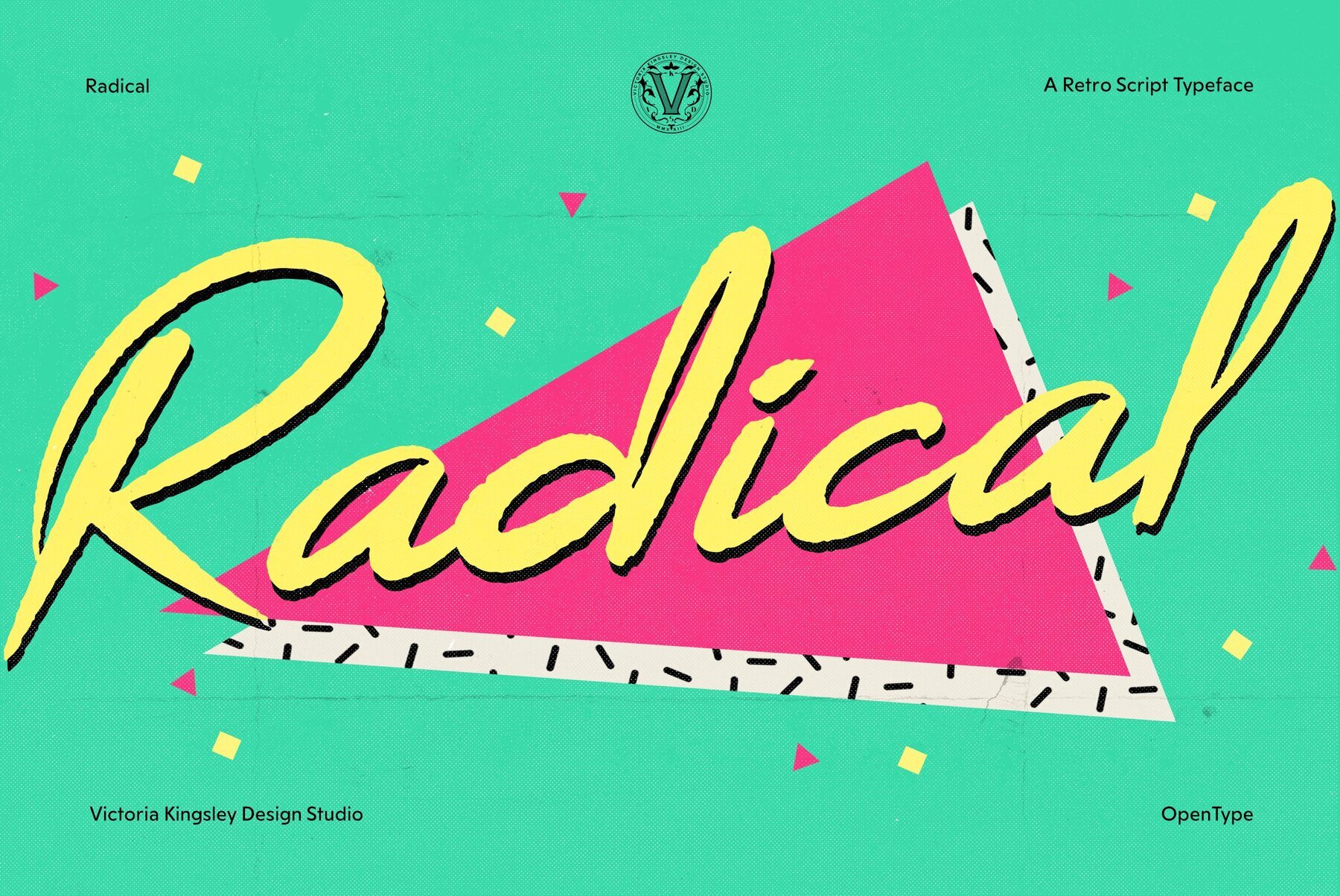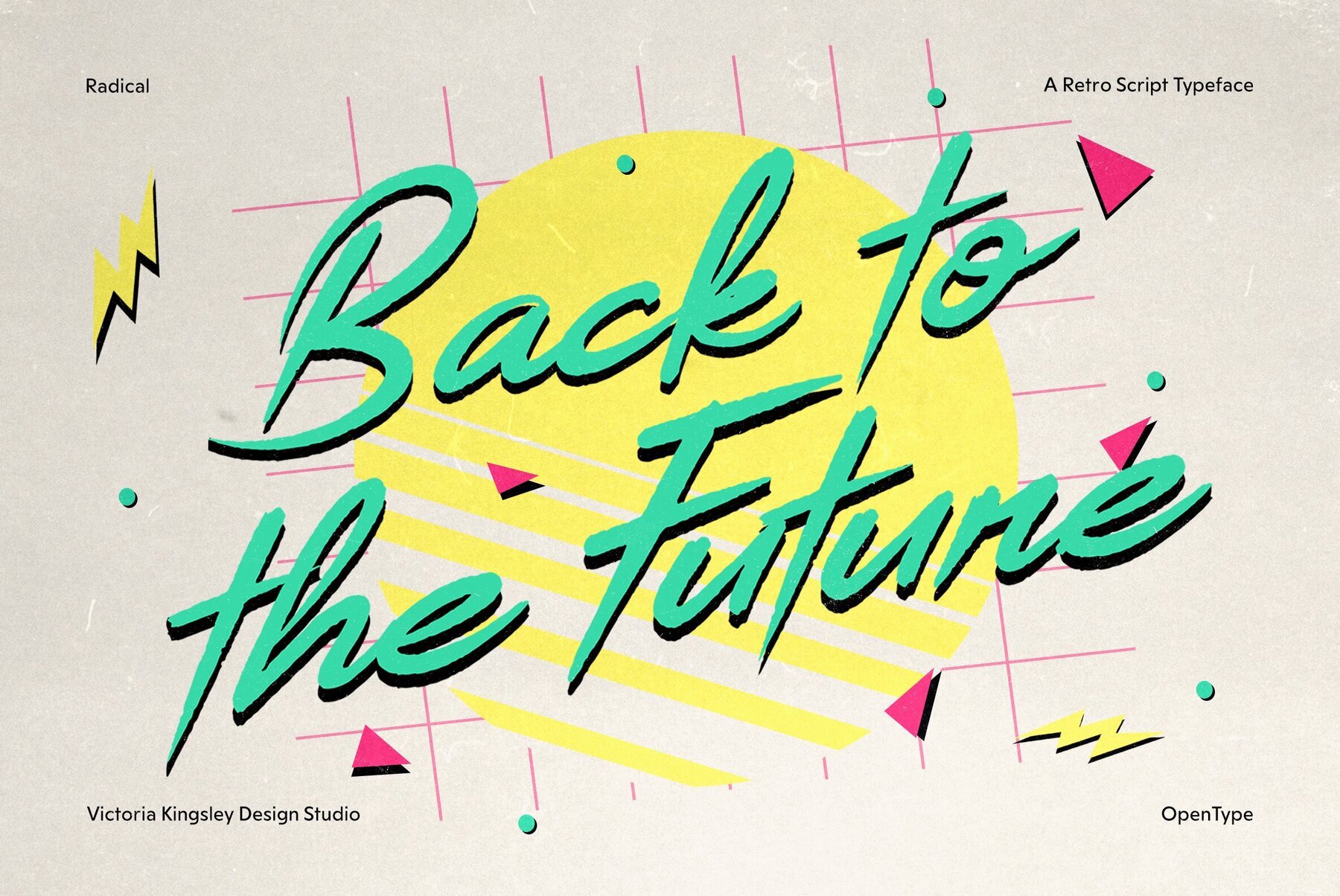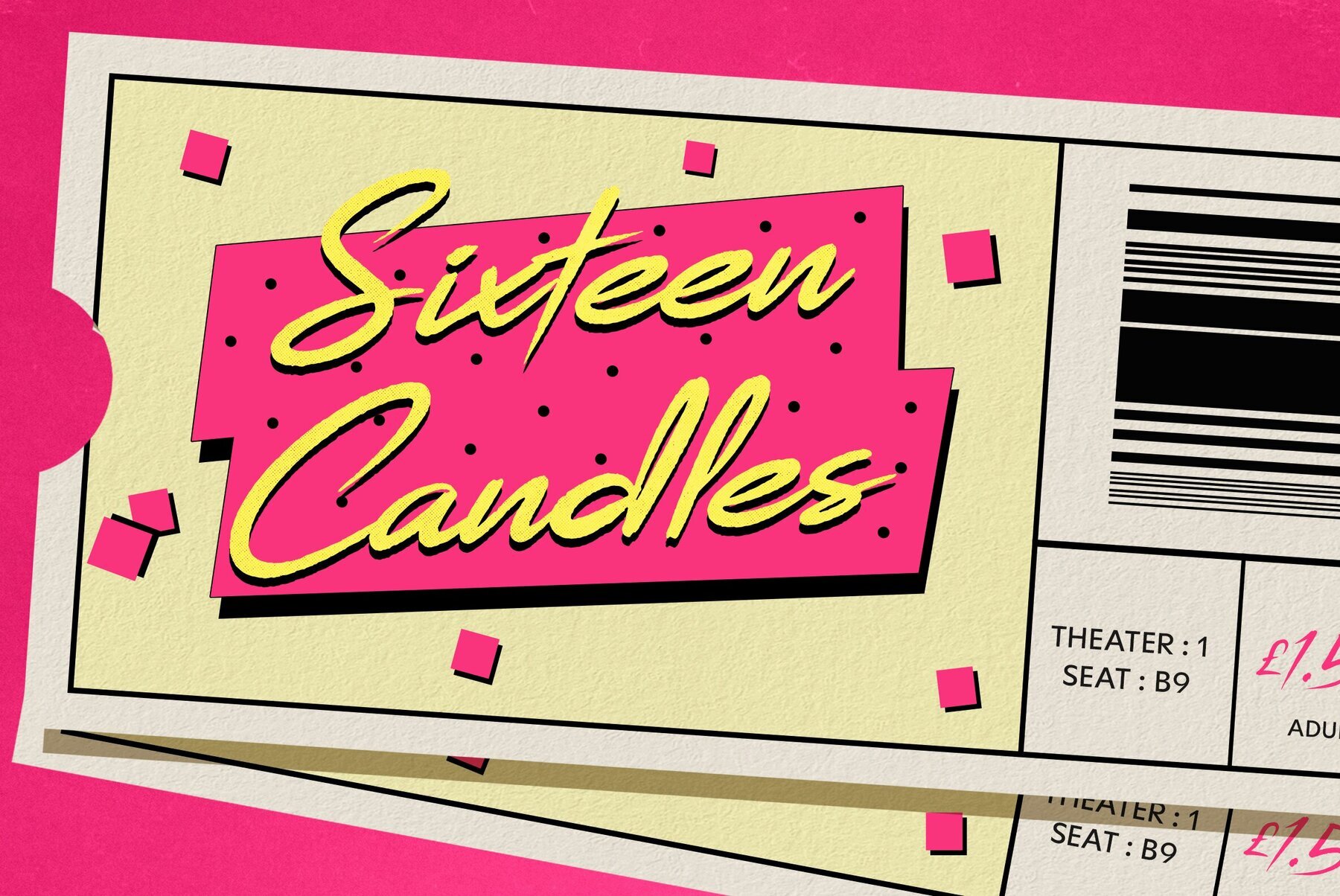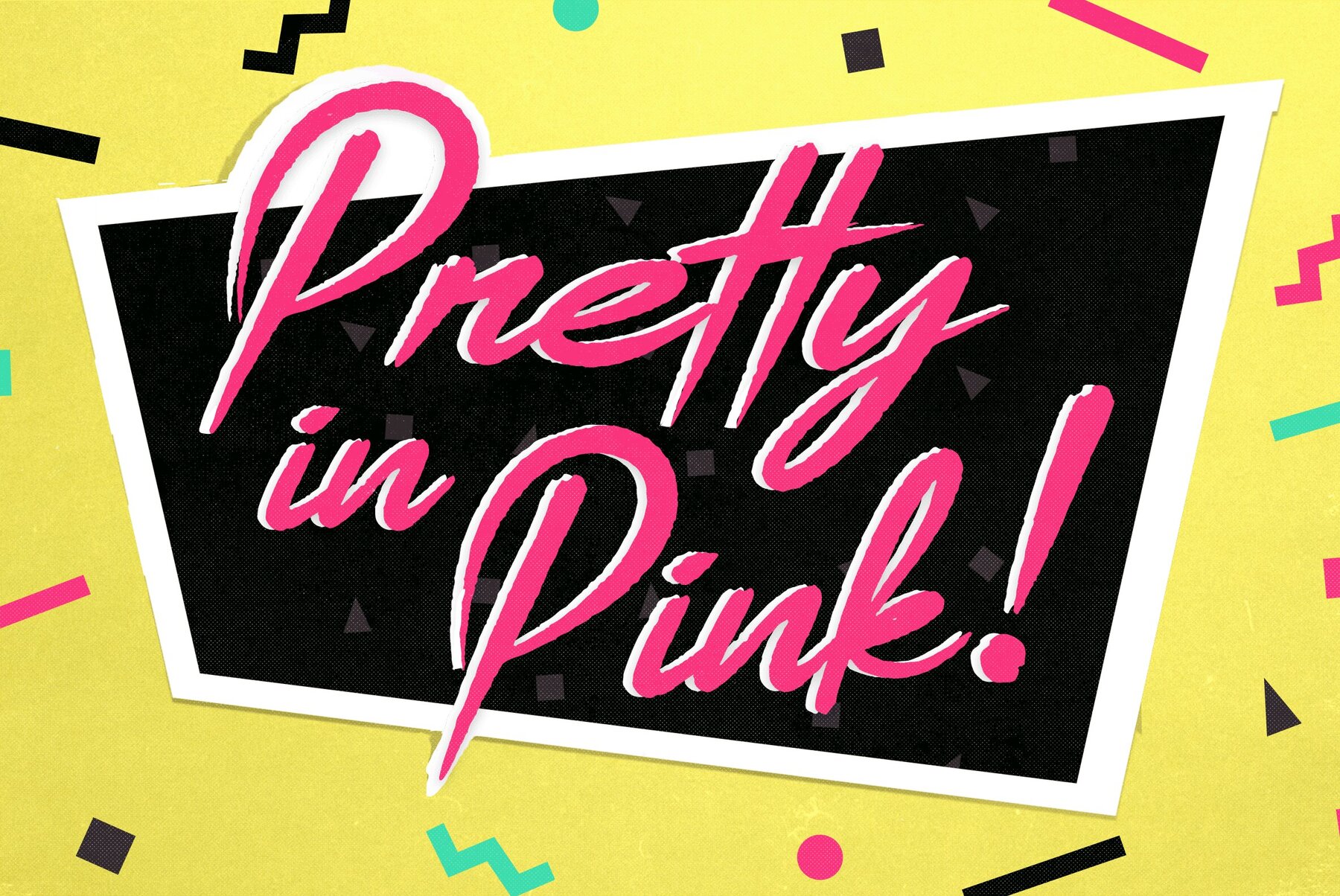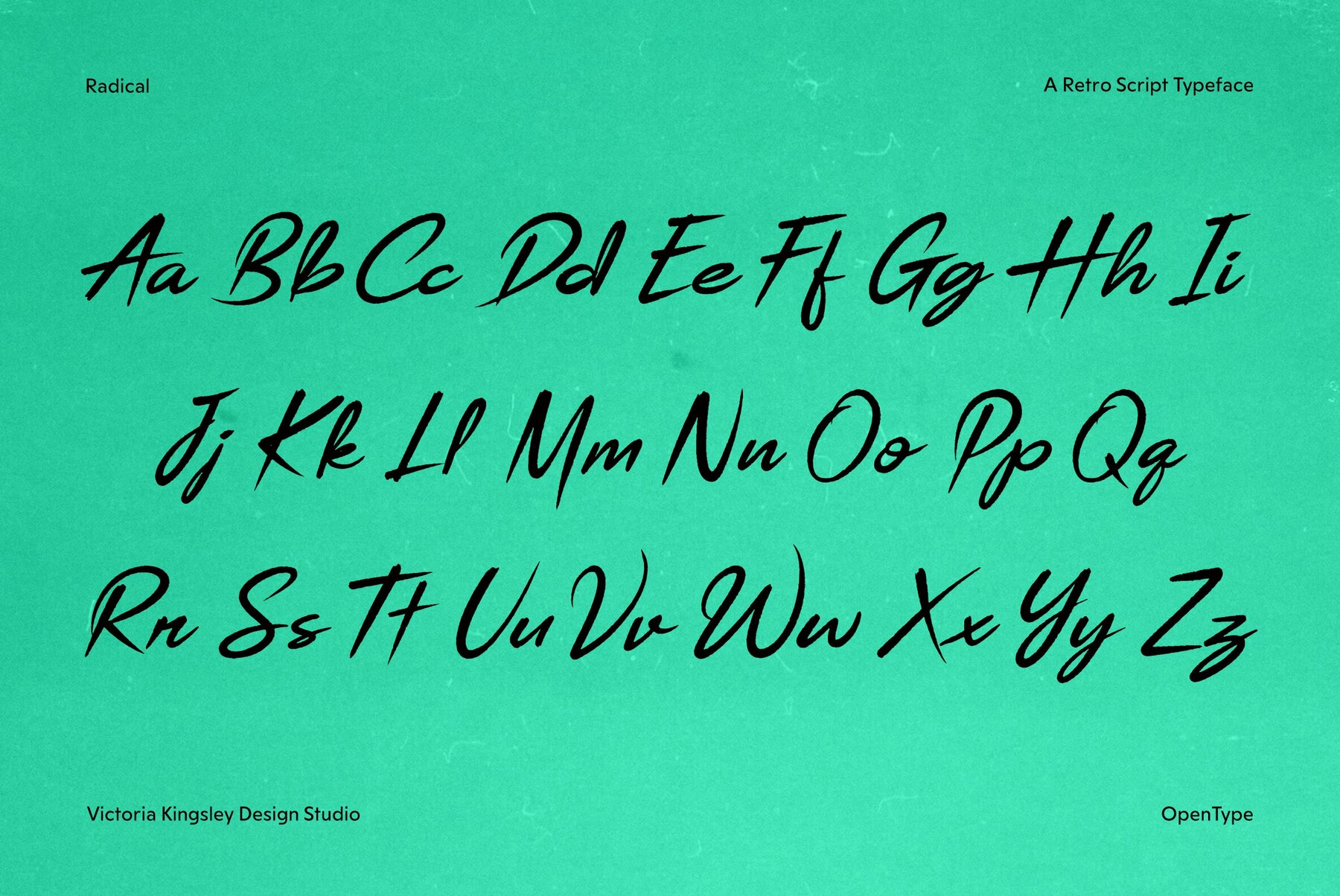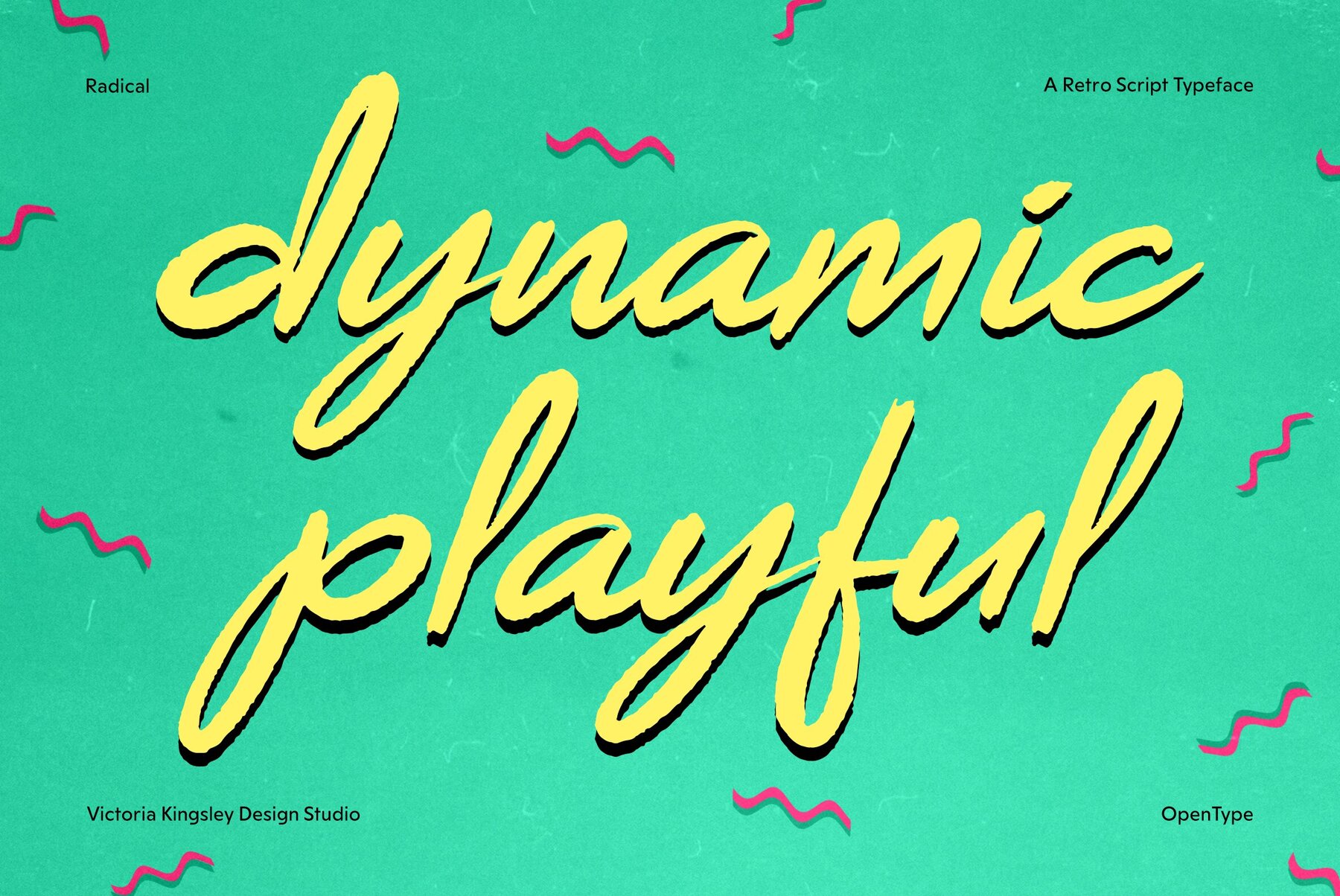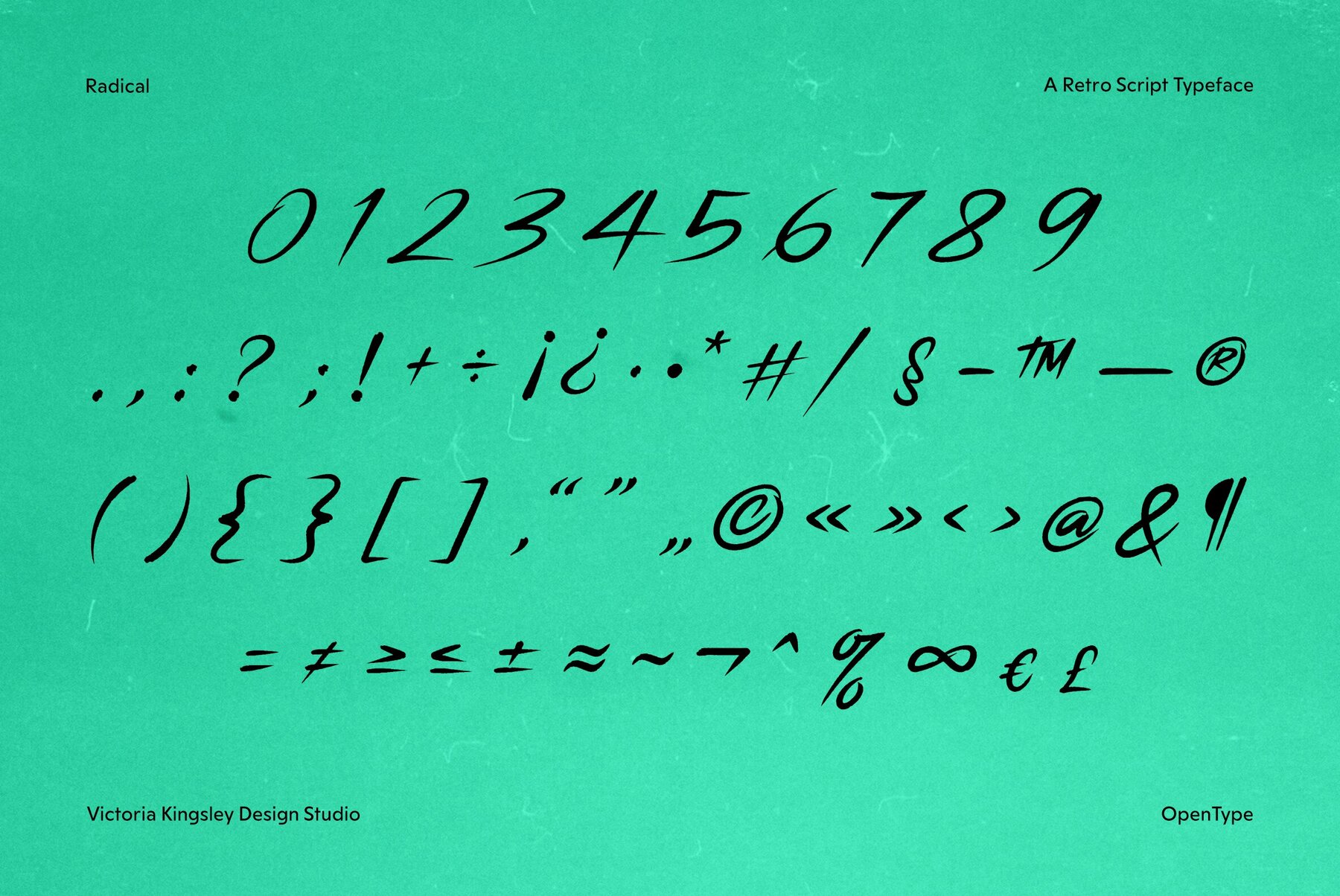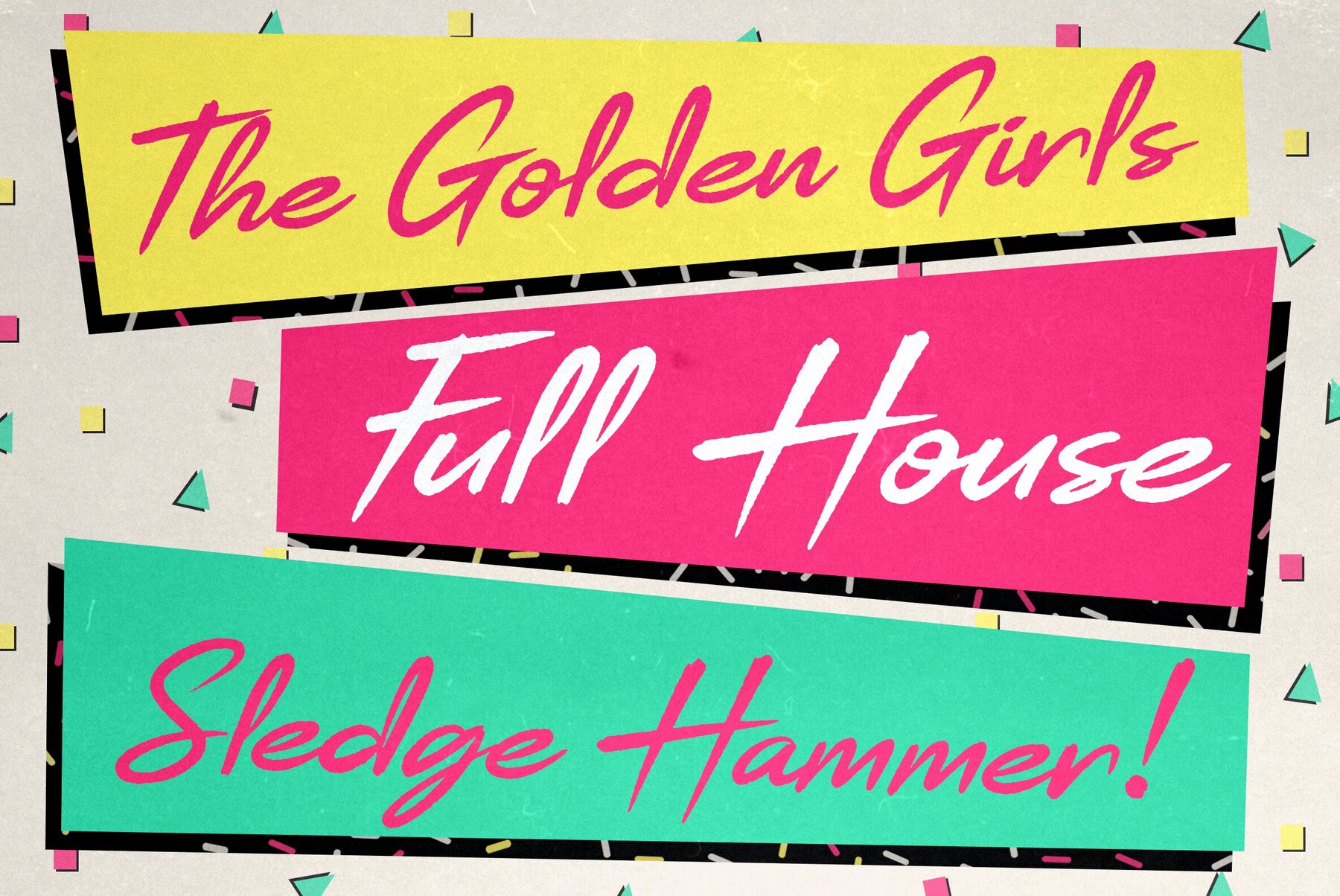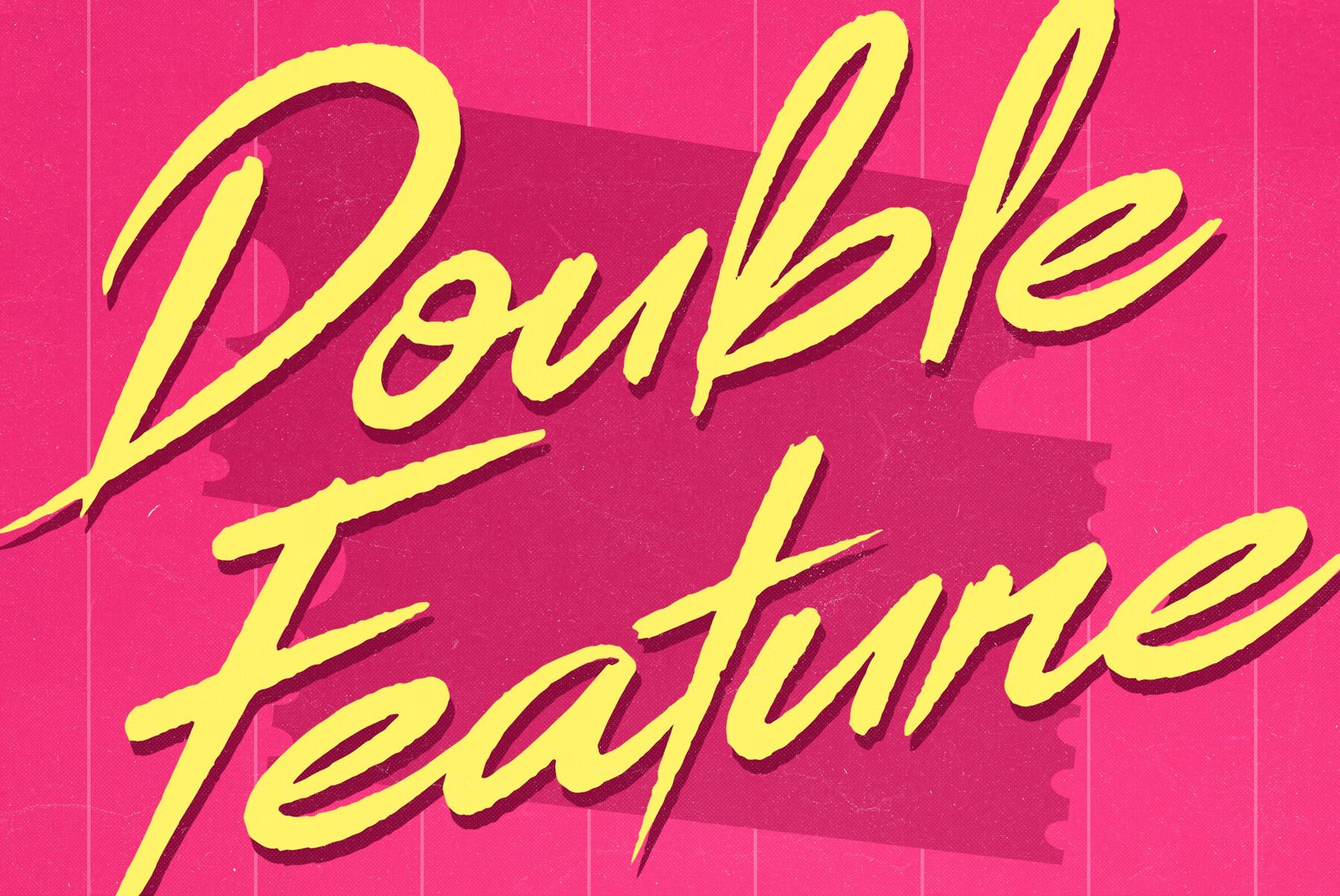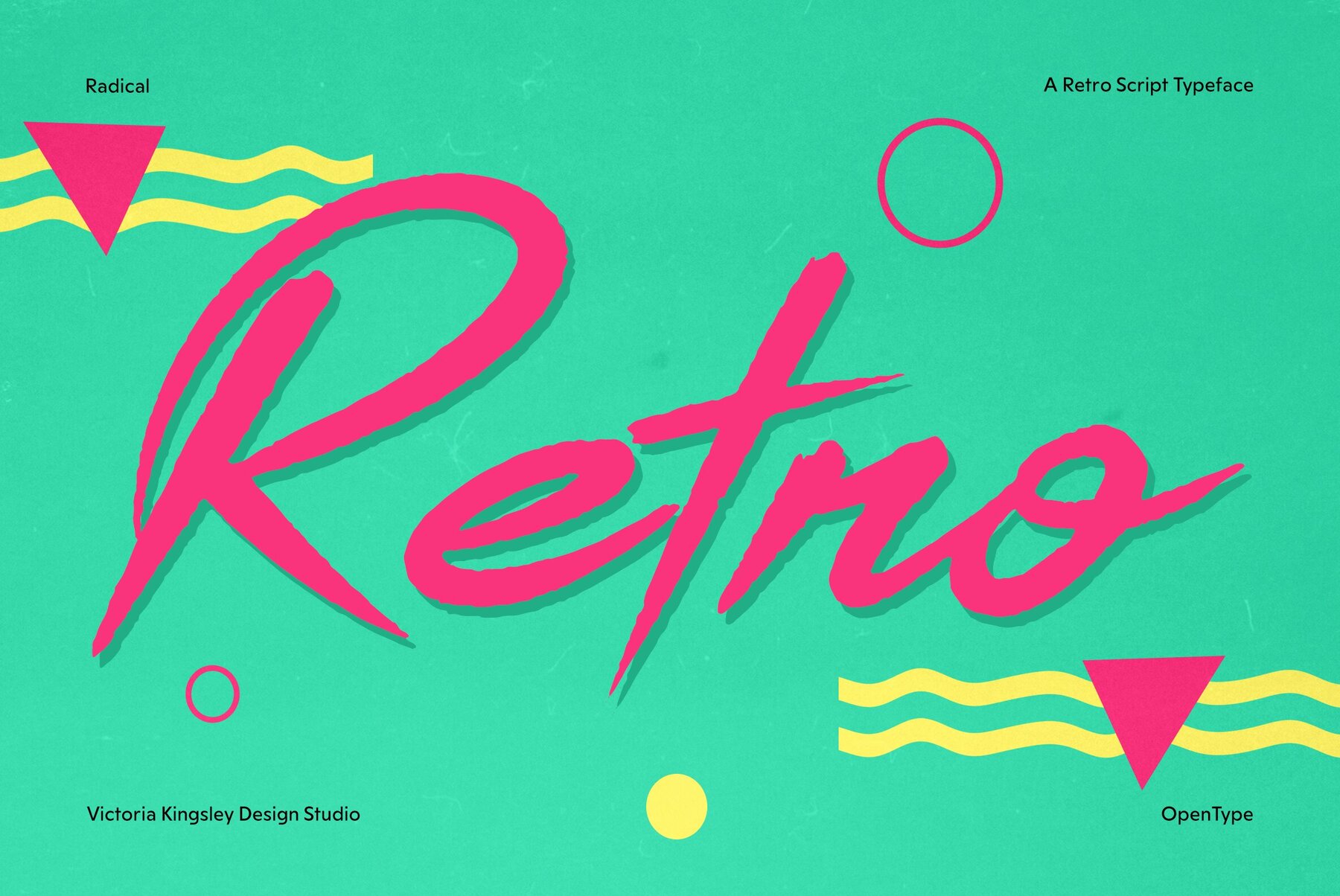
Dive into the neon-drenched, high-energy world of the 1980s, an era where design broke free from the shackles of the mundane and dared to be bold, loud, and unapologetically colorful. It was a time when music videos on MTV were everyone's primary source of new music, movies like "Back to the Future" and "The Breakfast Club" ruled the box office, and TV shows like "Miami Vice" and "Knight Rider" set the tone for cool. The design language of the 80s was characterized by its radical departure from the minimalist trends of the previous decade, embracing instead a vibrant palette of neon lights, pastel suits, and the futuristic gleam of chrome. This was the decade that taste forgot, or so they say, but in reality, it was the decade where design remembered how to dream big, with explosive patterns, electric neon, and typography that jumped right off the page. Enter Radical, a font that doesn't just nod to the 80s but fully embodies the era's unrestrained spirit of creativity and innovation. Designed by the visionary Victoria Kingsley Design Studio, Radical is a script that captures the essence of an era that was anything but subtle. With sharp, expressive strokes and a vibrancy that leaps out at you, this wicked script design is an homage to a time when design was as expressive as the music and fashion that defined the decade. Radical comes loaded with over 300 glyphs, including a suite of OpenType features that bring the flexibility and flair of 80s typography into the hands of modern designers. This font is a gateway to creating work that feels authentic to the era, equipped with everything from neon-lit alternates to the kind of stylistic sets that make typography truly sing. And because the spirit of the 80s was all about accessibility and universal appeal, Radical is offered without the need for subscriptions. Pay once, and this slice of the 80s is yours to use forever, across desktop, web, and mobile platforms. Radical font is a time machine, a design tool that brings the exuberance, optimism, and innovative spirit of the 1980s into the present day. Whether you're crafting a poster for a retro-themed event, designing a website that needs to channel the era's unique vibe, or creating an app that pays homage to the days of arcade games and synth-pop, Radical is the perfect font. It's not just about capturing the look of the 1980s; it's about invoking the feeling—those moments of exhilaration, the sense of boundless possibility, and the sheer fun that defined the decade. With Radical, Victoria Kingsley Design Studio invites you to embrace the ethos of an era that celebrated boldness in every aspect of culture and design. It's a tribute to the designers, musicians, filmmakers, and artists who made the 80s truly unforgettable, and it's your chance to infuse your own work with the same energy and flair that made the decade stand out. Get ready to go big, bold, and radical. Font Features Summary: Radical is not just an 80s font; it's an eighties comeback font designed for the modern age. Whether you're aiming for 80s logo design styles, incorporating vintage fonts into your work, or channeling 1980's graphic design, Radical delivers the quintessential 80s retro font experience, making it an essential addition to any designer's toolkit.Embracing the Vibrant Legacy of the 80s
Radical: A Typeface That Defines an Era
Beyond Typography: Capturing the 80s Spirit